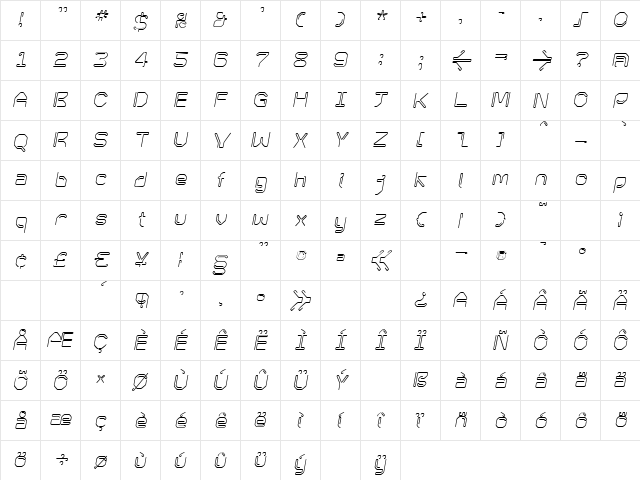
KneeonRegular Italic Regular
Design Context for KneeonRegular Italic Typeface
KneeonRegular Italic is a composed and adaptable typeface that performs quietly and consistently across a wide range of design contexts. The slanted form adds forward momentum and visual energy.
Pro Tip: Use KneeonRegular Italic for emphasis, pull quotes, and subheadings where its slanted energy can add rhythm to the layout.